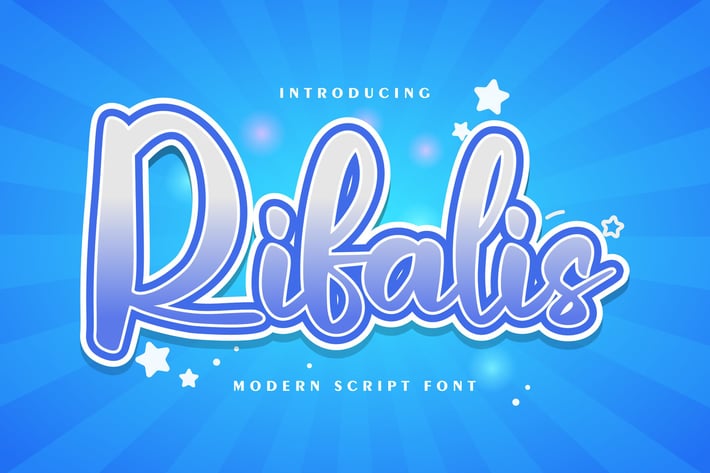
Rifalis | Modern Script Font
Rifalis | Modern Script Font with a calligraphy style, So beautiful on invitation like greeting cards, branding materials, business cards, quotes, posters, and more!